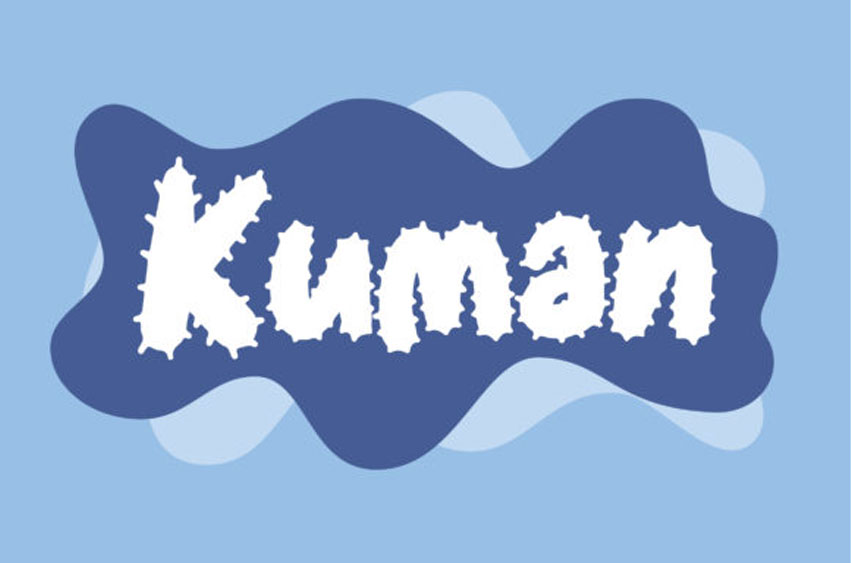
Kuman Font
Kuman Font is a modern display font.
Whether you’re looking for fonts for Instagram or calligraphy scripts for DIY projects, this font will turn any creative idea into a true piece of art!